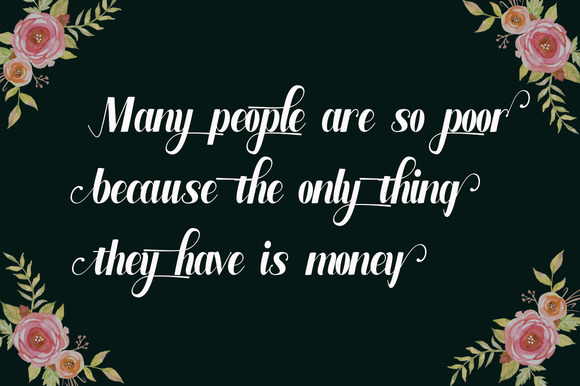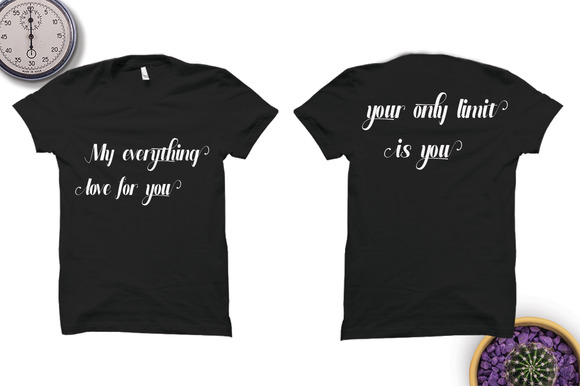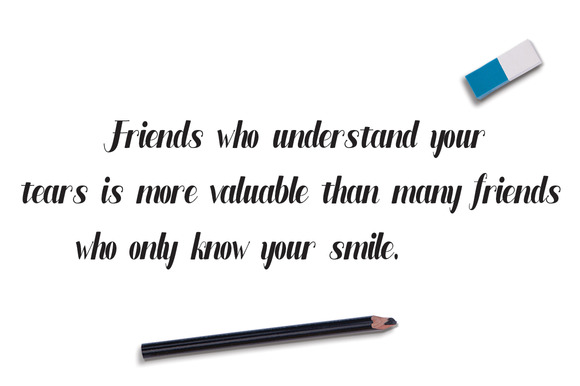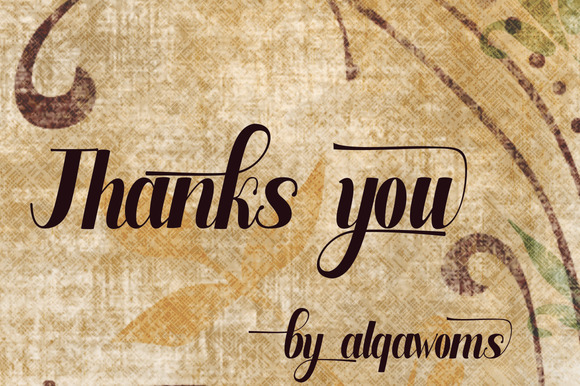
Introducing Annabelle Font: The Ultimate Modern Calligraphy Typeface for Your Creative Projects
Are you a designer, crafty DIY enthusiast, or a business owner looking for a unique and elegant font to elevate your visual projects? Look no further than the stunning Annabelle Font! This modern calligraphy typeface has gained popularity for its beautiful, wedding-inspired characteristics, making it an ideal choice for a wide range of creative applications.
What is Annabelle Font?
Annabelle Font is a modern calligraphy typeface designed to add a touch of sophistication and romance to your designs. Its elegant strokes, beautiful swashes, and refined lines make it perfect for creating stunning headings, logos, banners, posters, book covers, invitations, quotes, and more!
Key Features of Annabelle Font
- Modern Calligraphy Style: Annabelle Font boasts a fresh and contemporary calligraphy style that is sure to make your designs stand out.
- Wedding-Inspired Characteristics: With its romantic and elegant feel, Annabelle Font is perfect for wedding-related designs, such as invitations, save-the-date cards, and wedding stationery.
- Versatile Uses: This font can be used for a wide range of creative projects, including headings, logos, banners, posters, book covers, and more.
- Easy to Read: Despite its ornate and cursive nature, Annabelle Font remains highly legible, making it suitable for both digital and print designs.
Annabelle Font is a dream come true for designers and crafters looking to add a personal touch to their creations. Whether you’re designing wedding stationery, creating custom party decorations, or crafting beautiful DIY projects, this font is sure to inspire your creativity.
Tips and Tricks for Working with Annabelle Font
- Pair it with a Simple Font: For optimal readability, pair Annabelle Font with a simple, sans-serif font for body text.
- Experiment with Swashes: Annabelle Font comes with beautiful swashes that can add a touch of elegance to your designs.
- Use it for Headings and Titles: Annabelle Font is perfect for creating stunning headings and titles that will grab attention.
| Font Name | Annabelle Font |
| Author | Alqawoms |